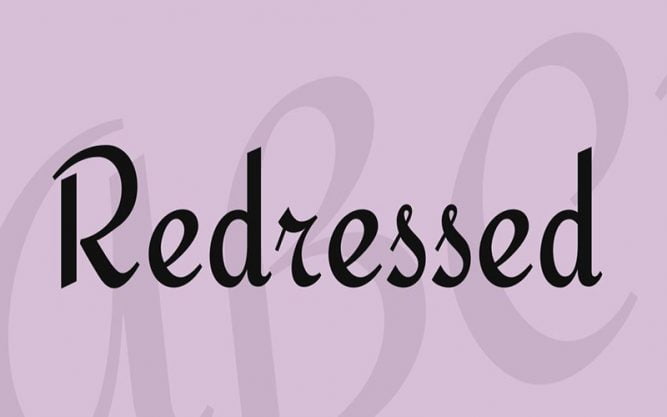
Redressed Font is a script and handwritten typeface family. It features a flowery still clear non-connected script typeface texture. It is exact for the condition where an old and casual lettering event is desired.
This is a medium-weight typeface that directly combines script and italic letterforms in a non-connected way and yields a perfect stylish handwritten layout.
It is available in a single regular style. The outer curves contrast with the angled inside counter shapes, which share feelings of depth and softness at constant times. We are providing it here for free in a zip download file at Anchor Fonts.
Redressed Font
| Style: | Script, Handwritten Typeface |
Its normal-weight typeface blends characters and Roman letterforms together. Open place and stylish letter farms for self-title. It is a great script typeface for sure.